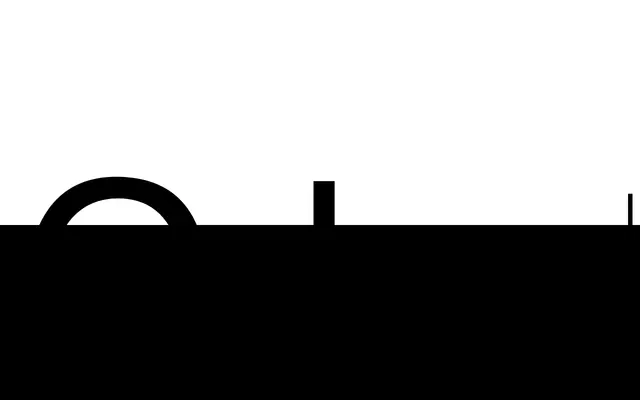
Odesta
Setup Type · Ondrej Jób · 2013
An ornamental display script by Ondrej Jób with high contrast, detached strokes and ball terminals, spanning seven weights from Hair to Black.
Released in 2013, Odesta is a narrow, high-contrast script typeface built around detached strokes and ball terminals, designed specifically for display settings. Seven weights from Hair to Black allow a wide tonal range while the medium x-height and ornamental character keep it firmly in headline territory. Its 983-glyph set includes small capitals, swashes, initial and final forms, discretionary ligatures and multiple figure styles, with coverage of over 100 Latin languages.
Odesta is explicitly described as a decorative script display typeface with detached strokes and ball terminals, placing it firmly in the script category with a display-oriented, ornamental subcategory.